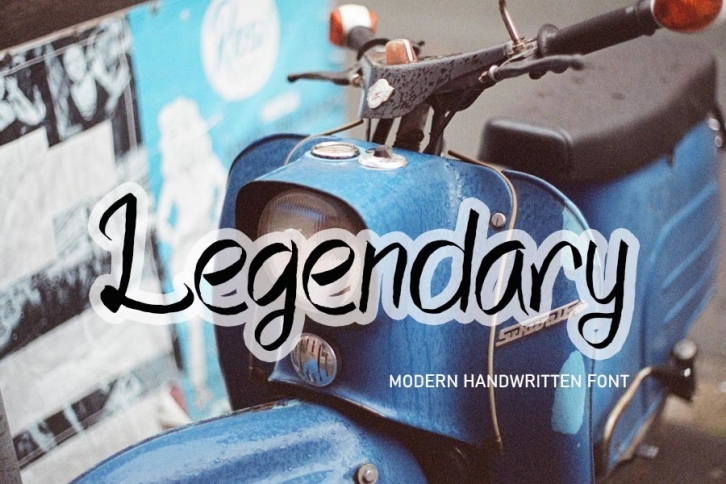
Legendary is a cute and trendy handwritten font. Its natural and unique style makes it incredibly fitting to a large pool of designs. The only limit is your imagination!